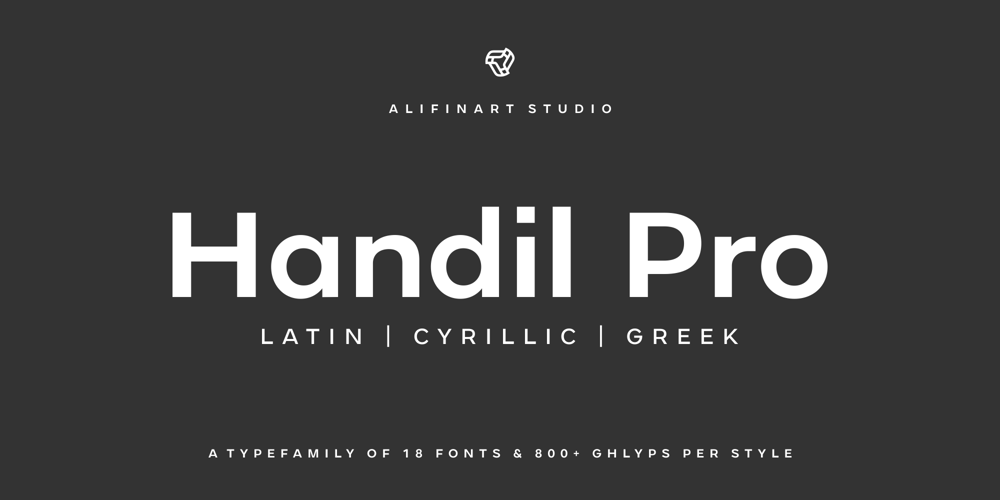
Handil Pro
Handil Pro font
Handil Pro Font Family was designed by Alif Nuryasin and published by Alifinart Studio. Handil Pro contains 18 styles and family package options. Handil Pro is a geometric sans-serif font that serves as the perfect complement to the Mustica Pro font family. This font boasts geometric shapes with optical adjustments and enhanced gestures.The name “Handil” is derived from a place where two rare and nearly extinct species reside, the Proboscis Monkey and the Muller’s Bornean Gibbon. Hearing the word “Handil” reminds us that amidst the bustling world, there are endangered creatures in the remote forests that we must preserve.Get it now.